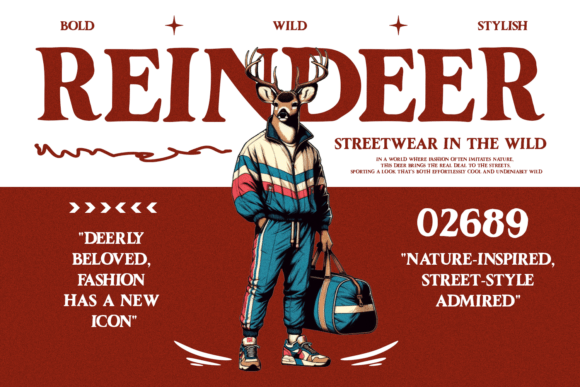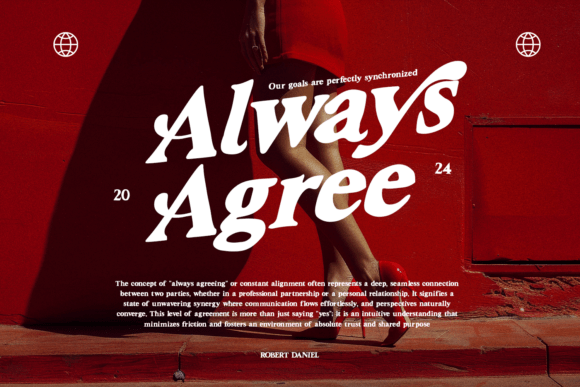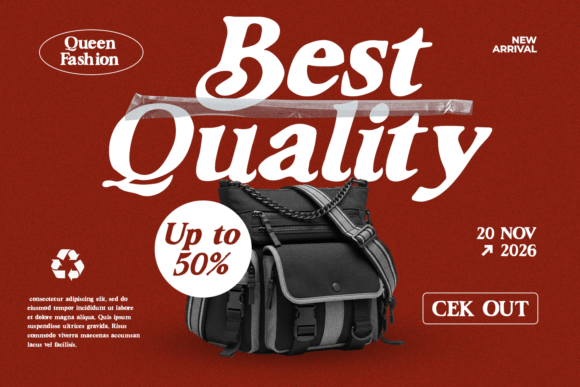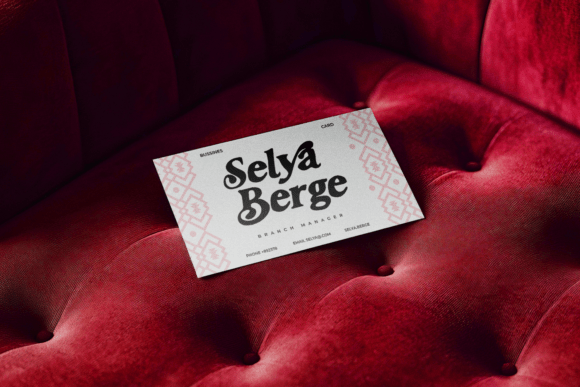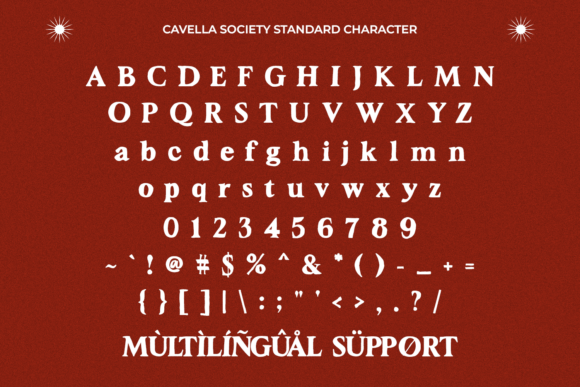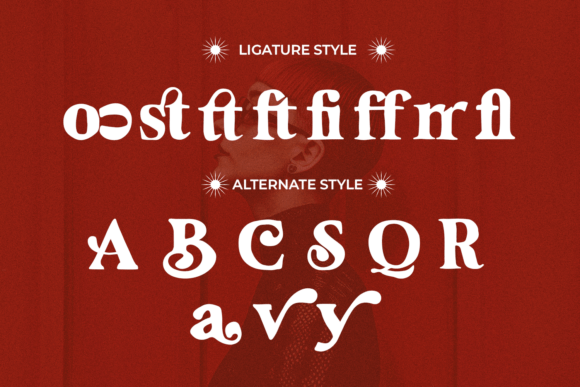
Cavella Society Font: A Timeless Blend of Vintage Charm and Modern Elegance
Are you a designer seeking to add a touch of nostalgia and sophistication to your projects? Look no further than Cavella Society, a hand-drawn serif font that masterfully blends vintage allure with contemporary elegance. This enchanting font is perfect for those who want to make a bold statement and create a lasting impression.
The Inspiration Behind Cavella Society
Cavella Society’s design inspiration stems from classical typography, with a dash of modern twist. The font’s distinctive smooth, friendly, and lavish aura is born from its soft curves, pronounced aesthetic, and a sprinkle of retro flavor. This unique blend of old and new makes Cavella Society feel both familiar and trailblazing, ensuring your branding and designs seize attention and remain timeless.
A Font that Exudes Character and Style
Cavella Society is more than just a font – it’s a statement piece. Its hand-drawn serif design gives it a unique personality that is both evocative and refreshing. The font’s soft curves and pronounced aesthetic make it perfect for designs that require a touch of elegance and sophistication. Whether you’re working on logos, packaging, or social media aesthetics, Cavella Society delivers a unique identity that is sure to stand out.
Cavella Society is a versatile font that is perfect for designers and crafters who want to add a touch of character and style to their projects. The font’s distinctive look and feel make it ideal for a wide range of applications, including:
- Logos: Create a lasting impression with a unique and memorable logo that showcases your brand’s personality.
- Packaging: Add a touch of elegance and sophistication to your packaging designs with Cavella Society’s luxurious feel.
- Social Media Aesthetics: Elevate your social media presence with a font that exudes character and style.
What Sets Cavella Society Apart
So, what sets Cavella Society apart from other fonts? Here are a few key features that make it a standout choice:
- Hand-drawn serif design: Gives the font a unique personality and character.
- Soft curves and pronounced aesthetic: Create a smooth, friendly, and lavish aura.
- Retro flavor: Adds a touch of nostalgia and vintage charm.
- Modern twist: Keeps the font feeling fresh and contemporary.
Tips for Using Cavella Society
Here are a few tips for getting the most out of Cavella Society:
- Use it sparingly: Cavella Society is a bold font, so use it sparingly to make a lasting impression.
- Experiment with different sizes: The font looks great in a variety of sizes, from large headings to smaller body text.
- Pair it with other fonts: Cavella Society pairs well with a range of other fonts, so don’t be afraid to experiment and find the perfect combination.
Cavella Society is a truly unique font that offers a perfect blend of vintage charm and modern elegance. Its hand-drawn serif design, soft curves, and pronounced aesthetic make it perfect for designers and crafters who want to add a touch of character and style to their projects. Whether you’re working on logos, packaging, or social media aesthetics, Cavella Society is sure to deliver a lasting impression. So why wait? Immerse yourself in the nostalgia of the past and the chicness of the present with Cavella Society – the perfect font for those who want to make a bold statement.